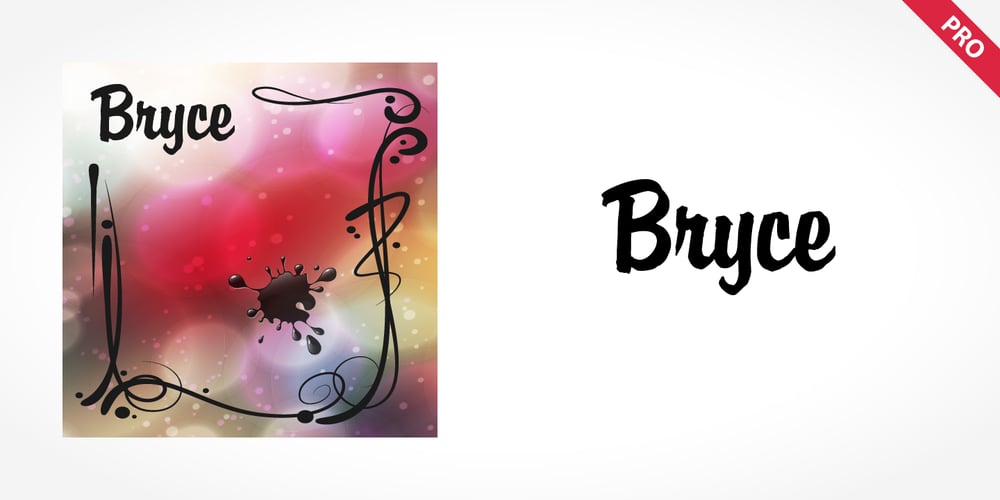
Bryce Pro Font Family was designed by published by SoftMaker. Bryce Pro contains 1 styles and family package options. While most script typefaces are slanted, Bryce is an upright script. Bryce can be used everywhere where an informal, handwritten style is desired, for example in signage and on posters. SoftMaker’s Bryce Pro typeface comes with a huge character set that covers not only Western European languages, but also includes Central European, Baltic, Croatian, Slovene, Romanian, and Turkish characters. Case-sensitive punctuation signs for all-caps titles are included as well as many fractions, an extensive set of ligatures, and separate sets of tabular and proportional digits.